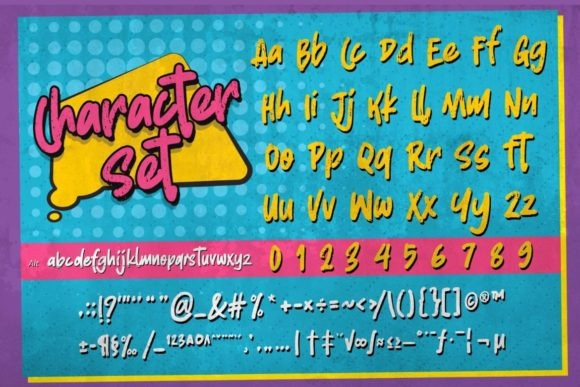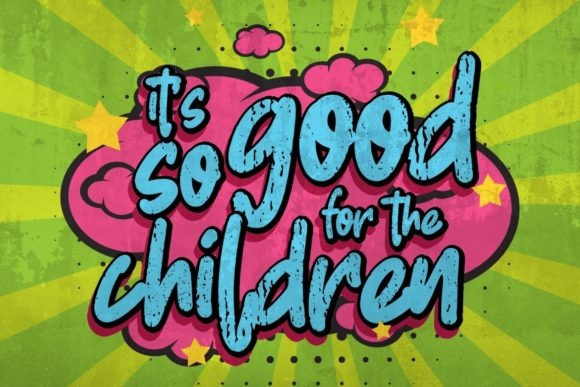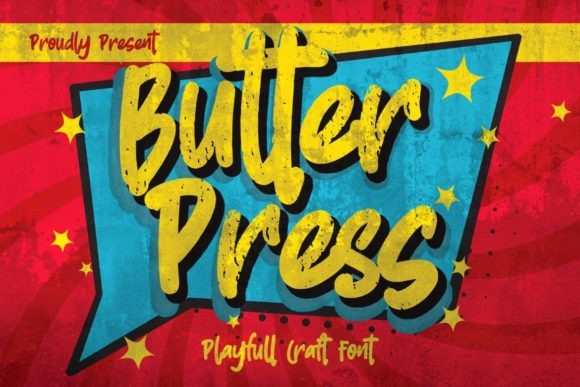
Butter Press Font
Butterpress Script Font is a playful, retro and crafty display font. It works great for posters, branding, labels and many other designs that require a quirky touch. This font is PUA encoded which means you can access all of the glyphs and swashes with ease!